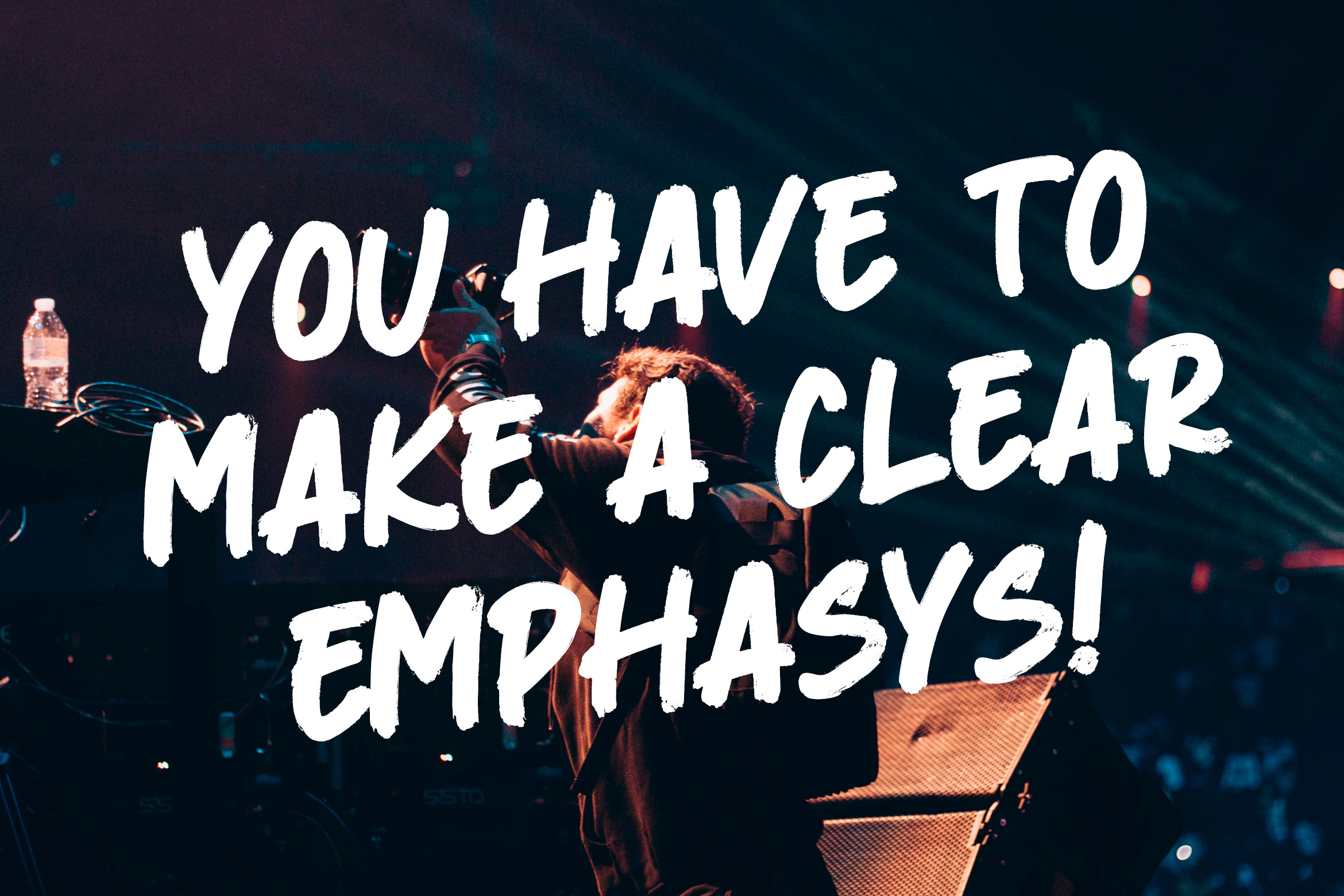
Tagliner - Handwritten Font
Introducing TAGLINER, a unique display font from Strokes.ink. This handy sans serif includes a full character, numbers, punctuation & also alternate version. Perfect for big displays, titles, posters, marketing & advertising.
- Alternate glyphs for each lowercase letter
- Numbers & All major punctuation included